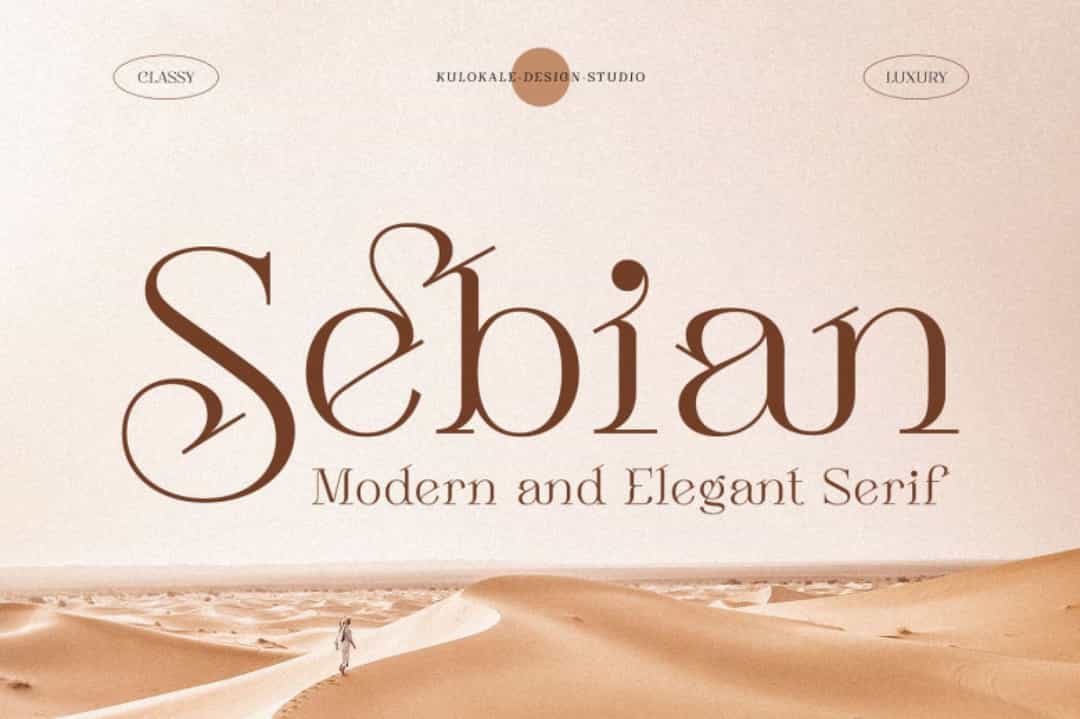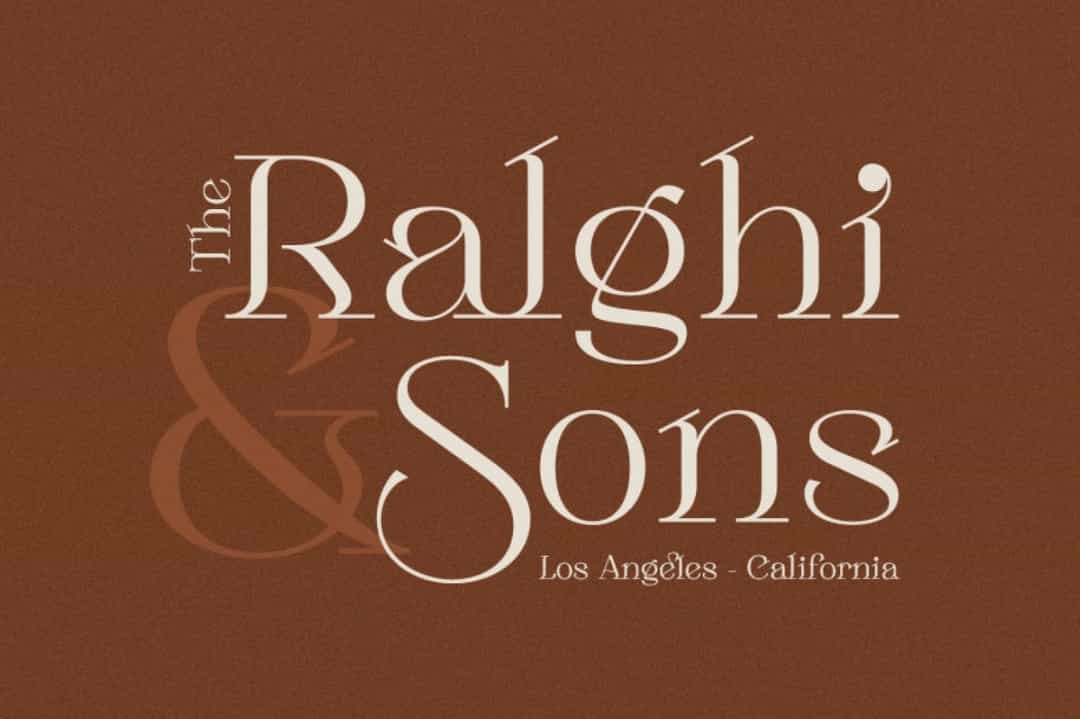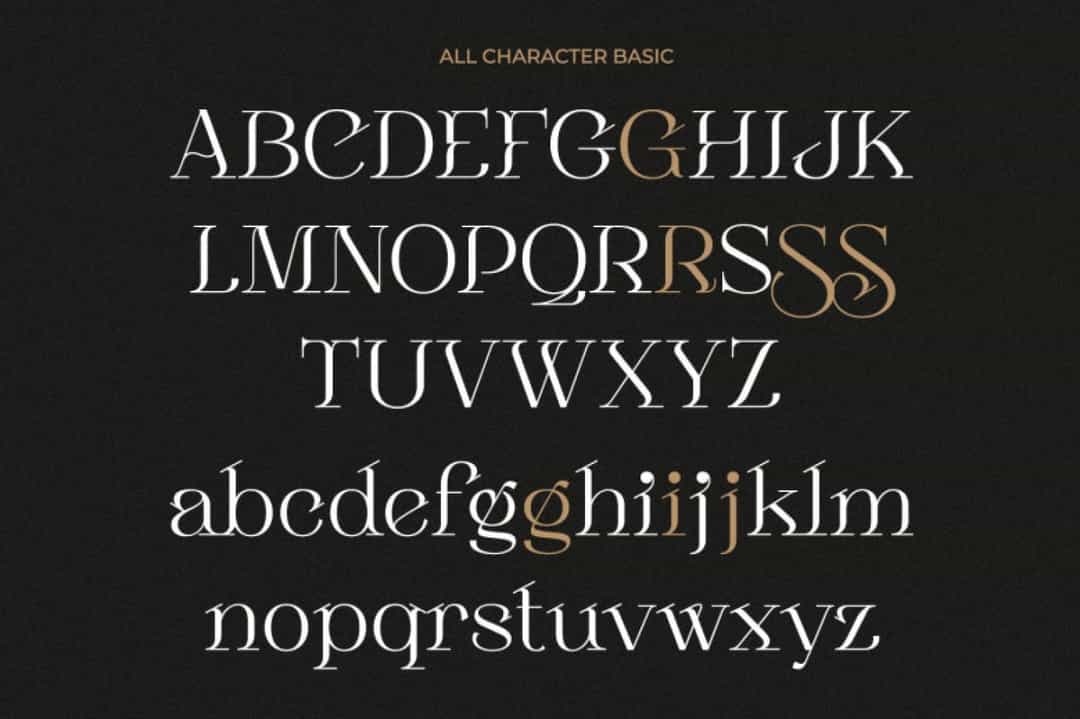
Sebian Font is a contemporary serif typeface with added features designed by Kulokale, perfect for branding, advertising packaging logotypes headlines titles and editorial designs. Available in both regular and italic Version.